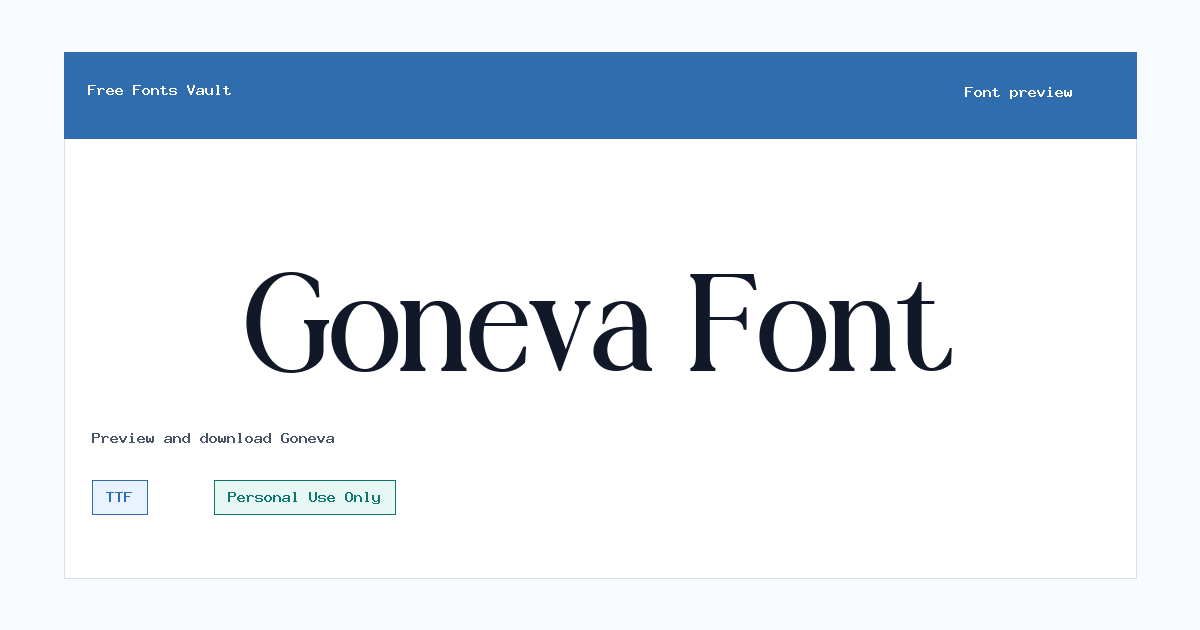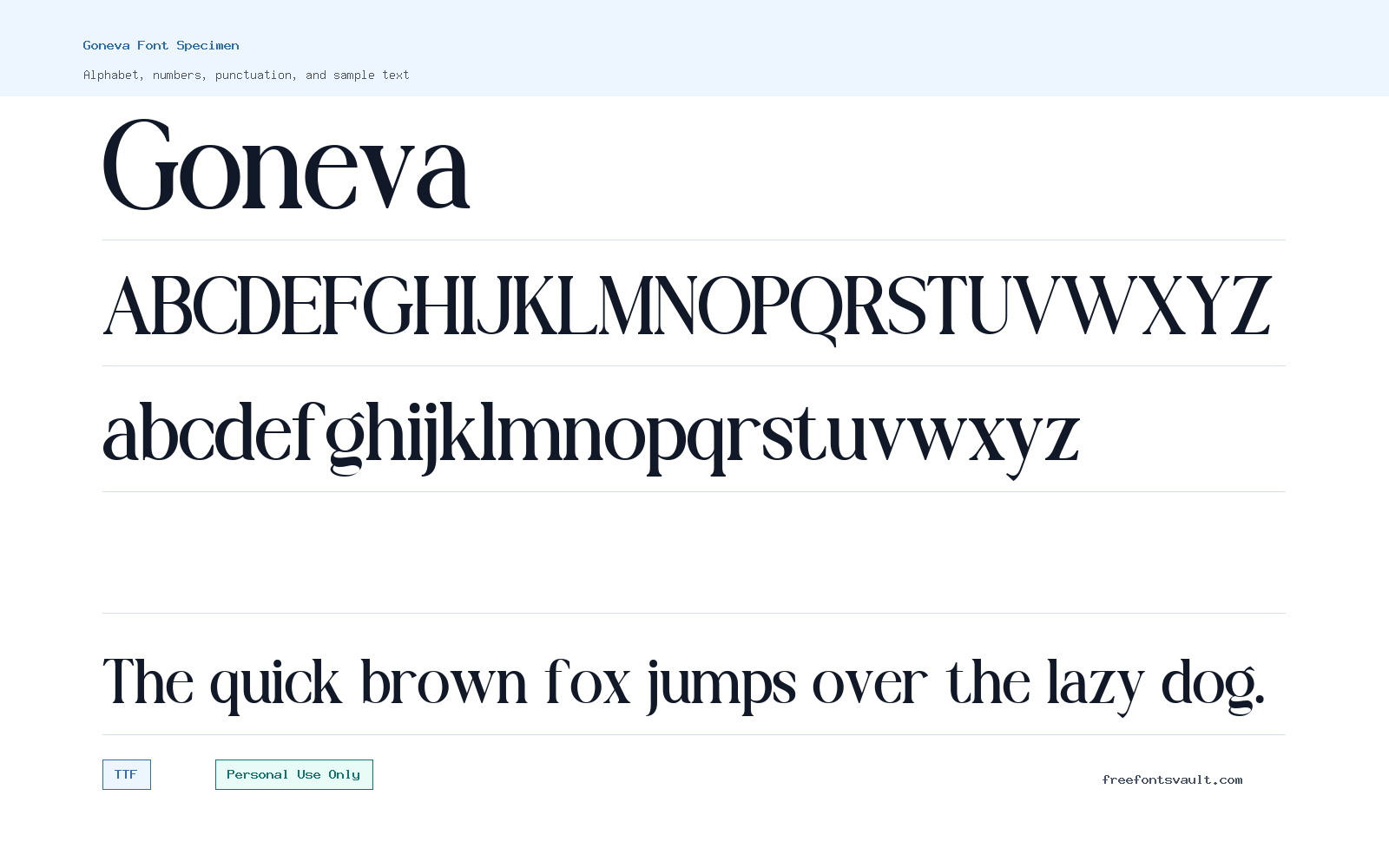
Goneva
Goneva Font
Goneva is a serif font by FLAWLESSANDCO with a regular TTF style for personal projects. It is a good font to test when you need a clean serif look for short display text, headings, invitations, or image-based designs.
About Goneva Font
Goneva works best when you give it enough space to show its serif character. Since the downloadable style is a regular weight, it is most useful for titles, names, short quotes, simple branding drafts, social graphics, and decorative text blocks rather than long, dense reading. Try it first in the font preview with the exact words you plan to use, because serif fonts can change mood quickly depending on letter combinations, spacing, and size.
For a balanced layout, pair Goneva with a plain sans serif for body copy, captions, buttons, or small details. Keep the serif font for the part of the design that needs attention, then let a simpler companion font handle the supporting text. If you use Goneva in a poster, card, logo mockup, or Pinterest-style graphic, test it at both large and smaller sizes before exporting. This helps you catch tight spacing, thin details, or letters that may need manual adjustment.
• Serif font style with a regular weight
• Best suited to short display text and personal design work
• Personal invitations, greeting cards, and event graphics
• Quote images, social media posts, and Pinterest pins
• Simple heading treatments for personal blogs or mockups
• Logo concepts and branding drafts for non-commercial testing
Who designed Goneva?
Goneva is credited to FLAWLESSANDCO.
What kind of projects is Goneva good for?
Goneva is best for short personal-use text such as headings, invitations, quote graphics, cards, logo drafts, and social media images.
Can I use Goneva for body text?
You can test it for short paragraphs, but it is safer to use Goneva for titles or display text and pair it with a simpler font for longer reading.